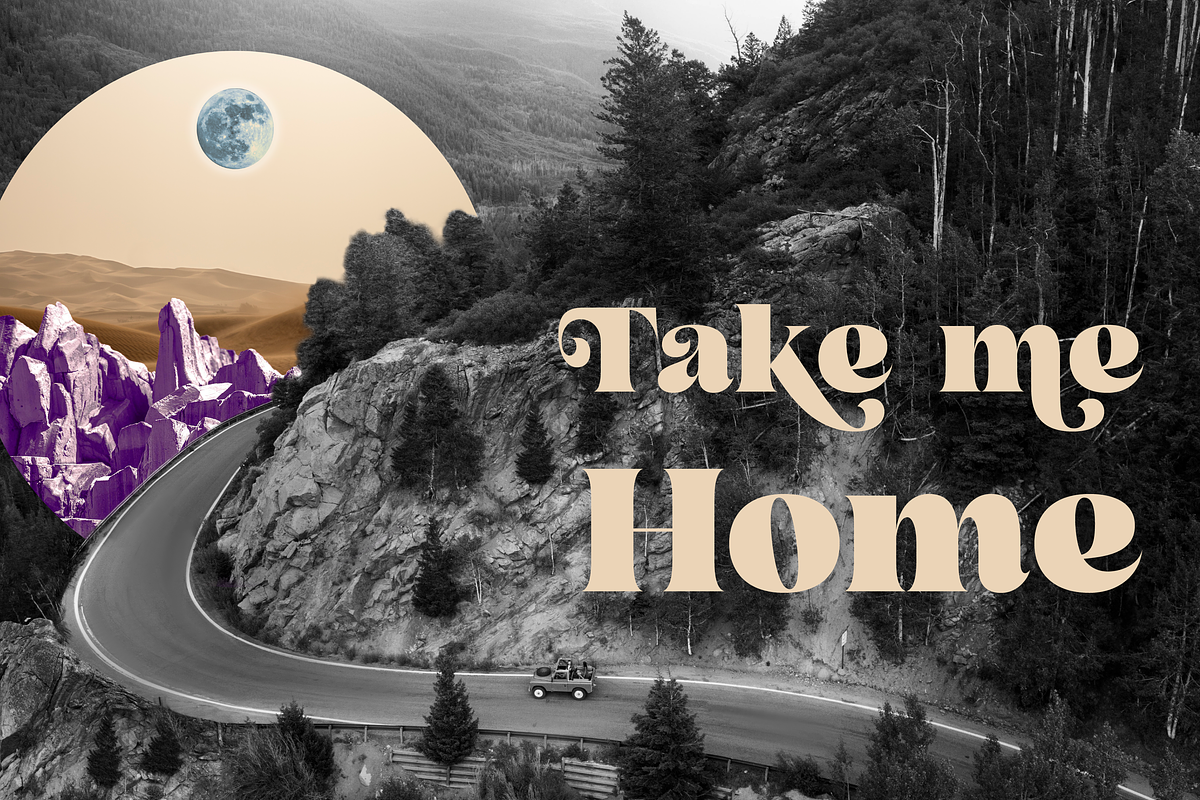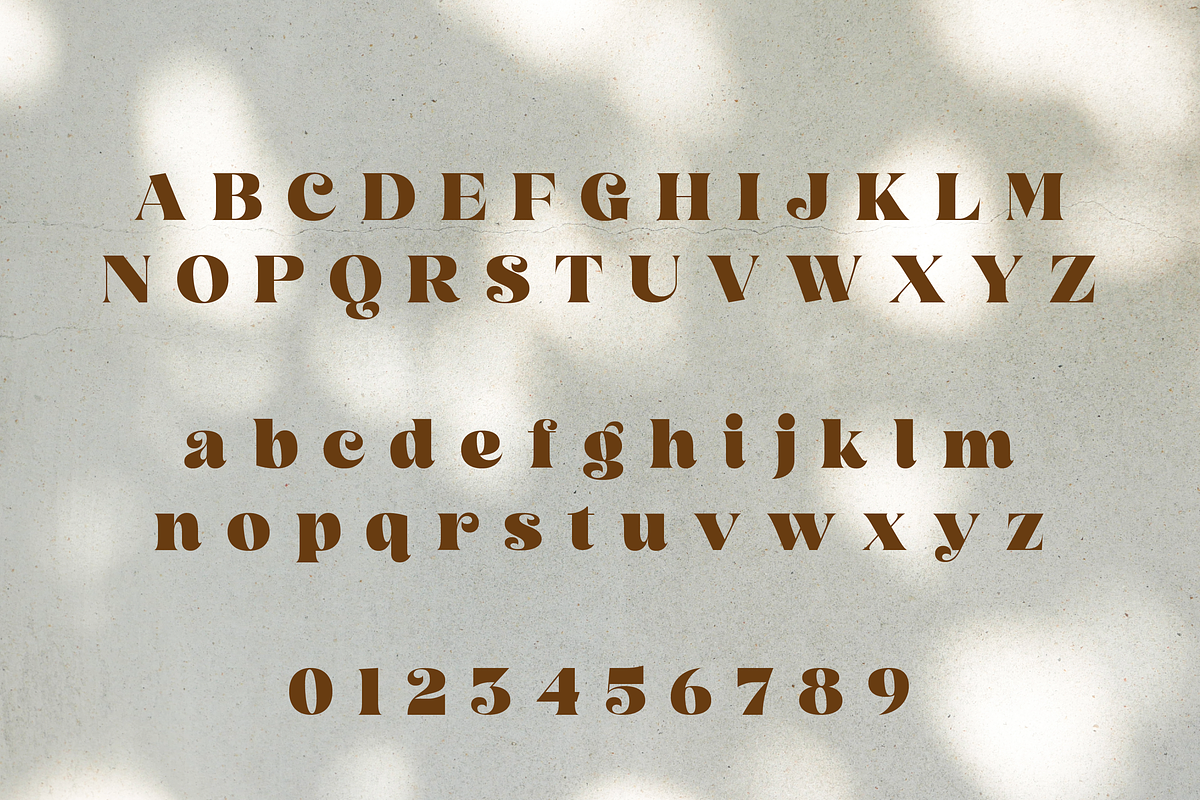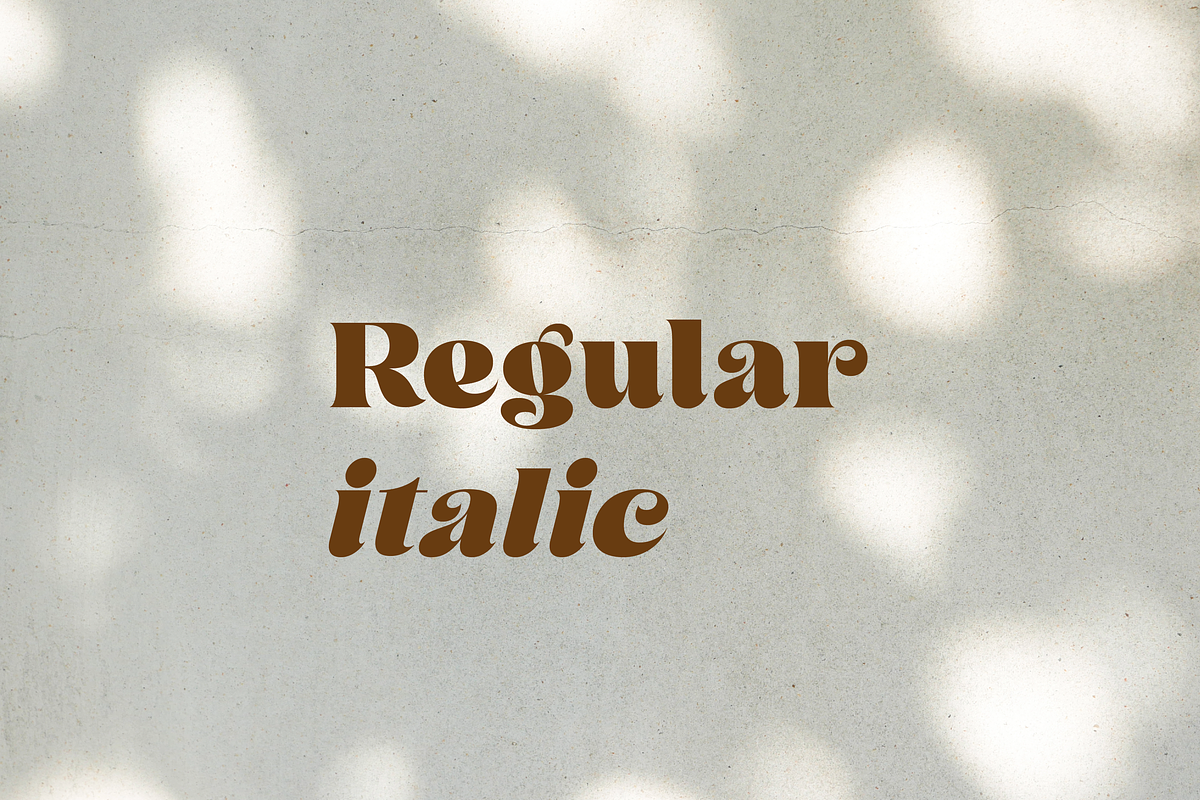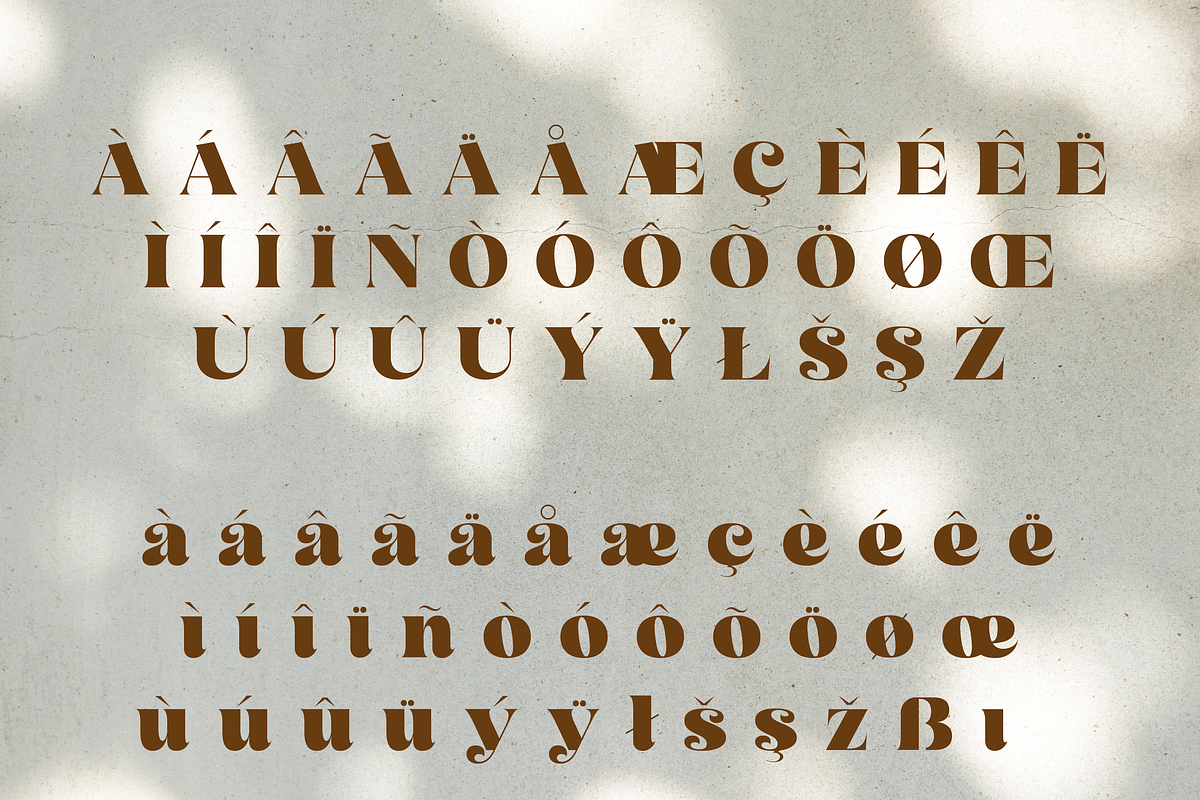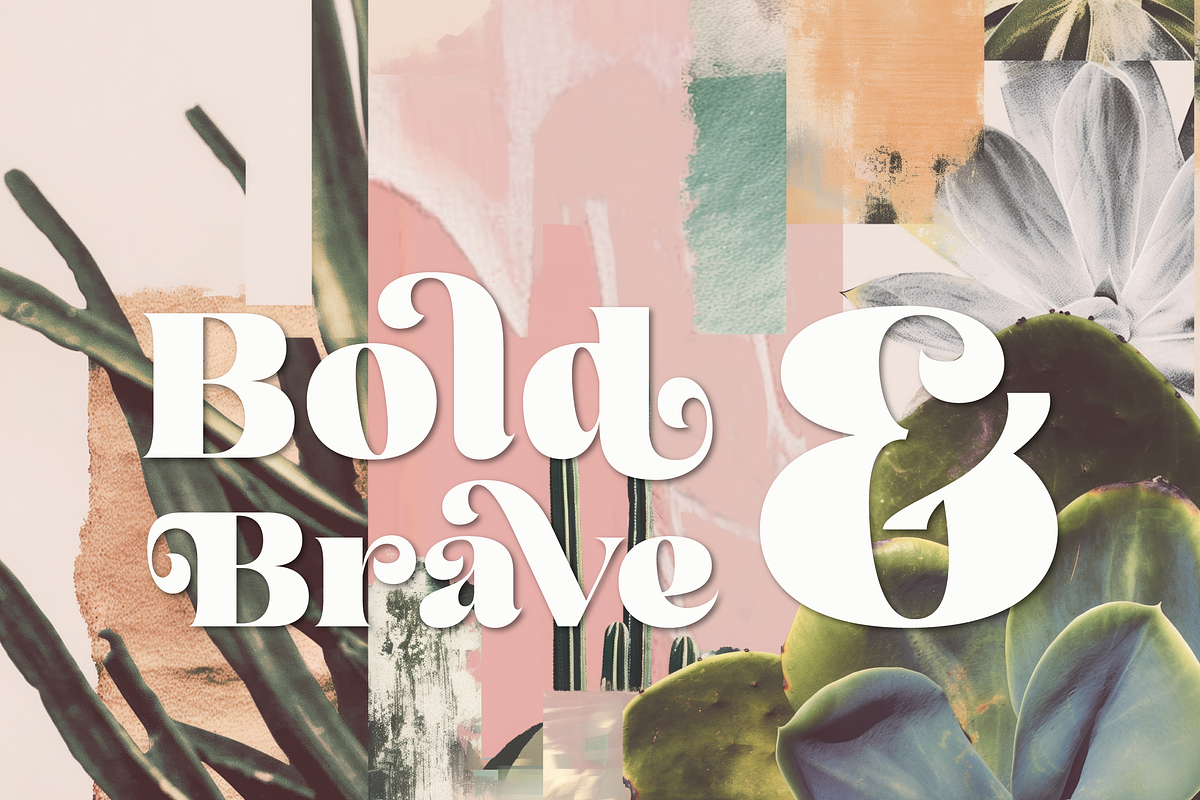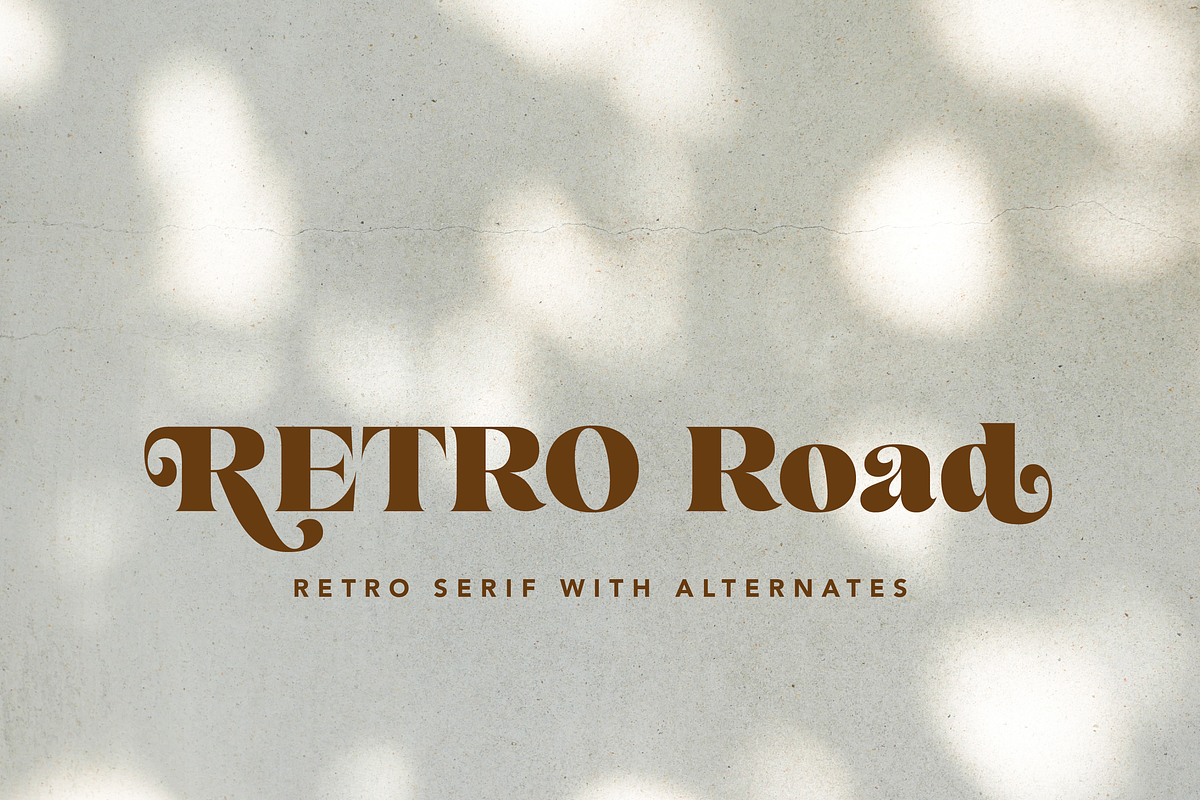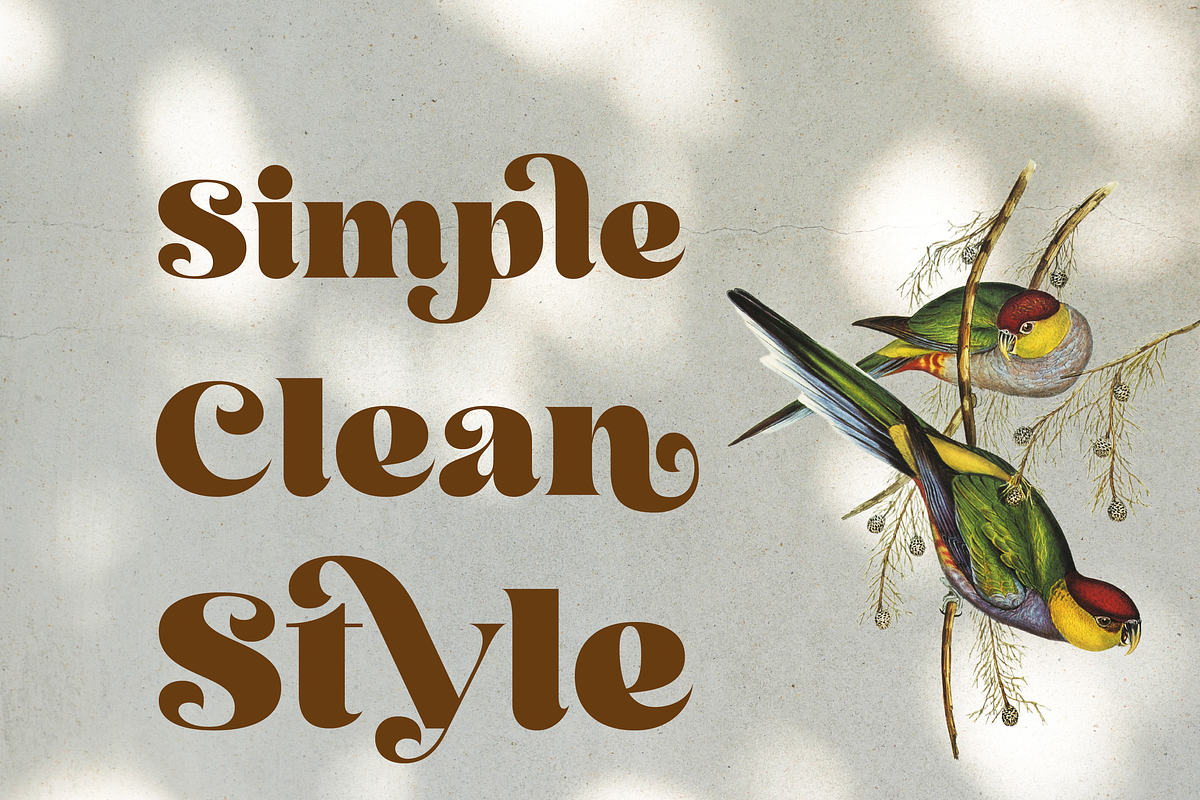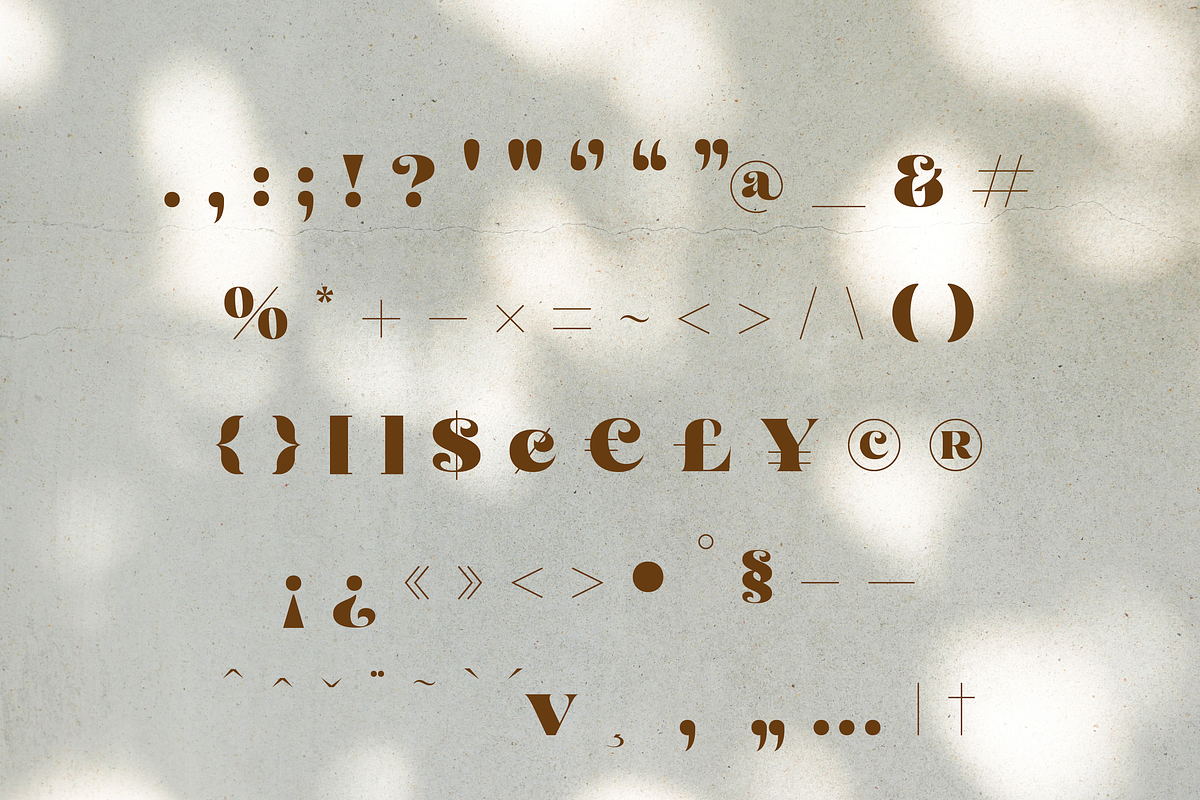
Retro Road Serif
Retro Road Serif – Bold Vintage-Inspired Display Serif
Retro Road Serif is a striking, bold serif typeface that channels mid-century vintage charm with contemporary precision. Its sturdy serifs and strong letterforms make it an excellent choice for attention-grabbing headlines and display text.
Bring your designs to life with Retro Road Serif, where bold vintage flair meets modern functionality.